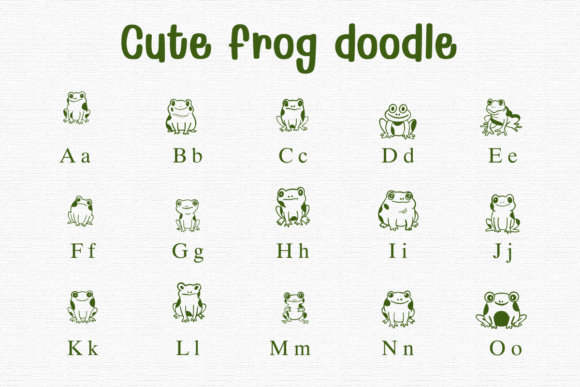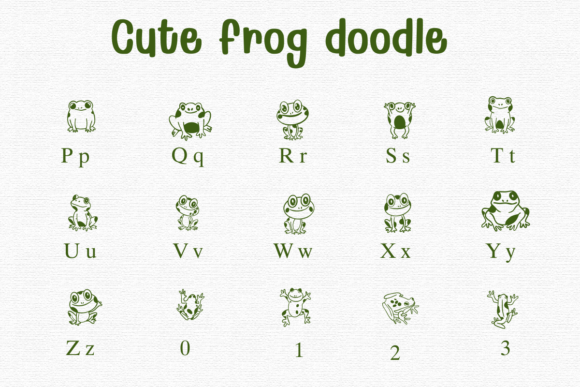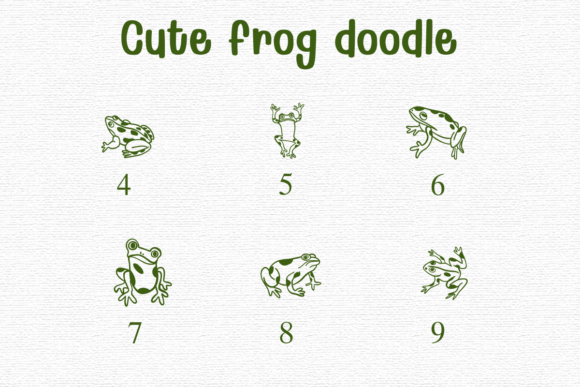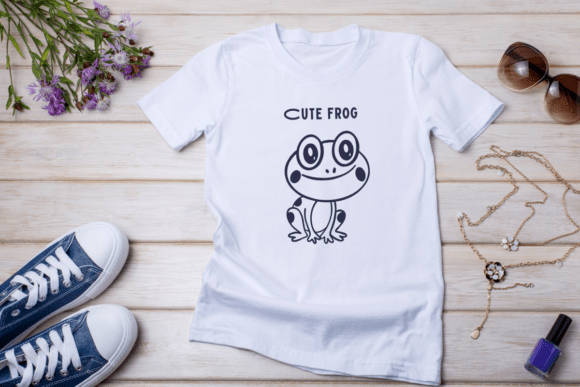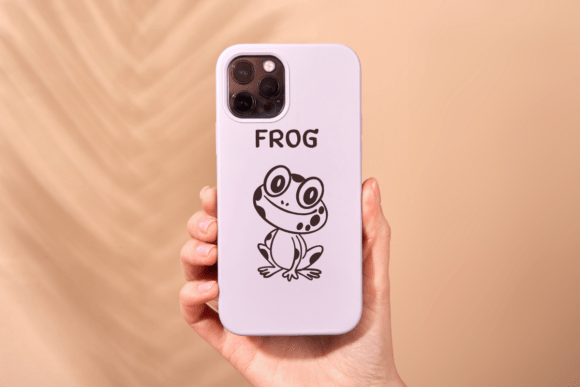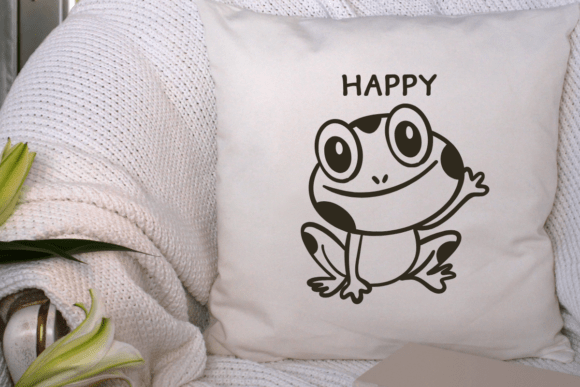
Introduction to Cute Frog Doodle Font
Leap into creativity with the Cute Frog Doodle dingbats font.
This delightful set features an adorable variety of hand-drawn frog characters in playful poses and expressions Perfect for childrenโs projects, scrapbooking, stationery, animal-themed designs, and educational materials, these charming amphibians will add a fun and friendly touch to your creations.
Key Features of Cute Frog Doodle Font
Why Choose Cute Frog Doodle Font?
Cute Frog Doodle Font offers exceptional quality and versatility, making it a valuable addition to your design toolkit. Whether you’re creating for personal projects or commercial use, Cute Frog Doodle Font delivers professional results.